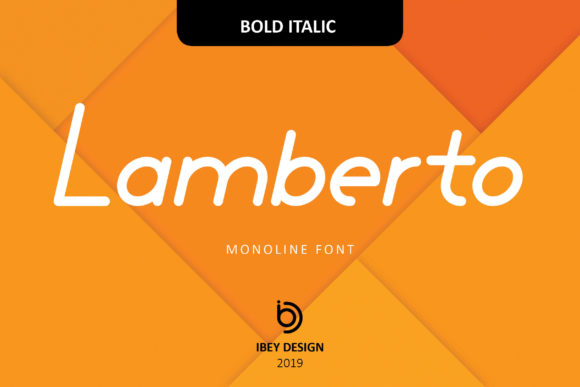
**Lamberto Bold Italic: The Font that Embodies Boldness and Elegance**
Prepare to be captivated by Lamberto Bold Italic, a monoline display font that exudes an air of sophistication and unwavering confidence. This masterpiece of typography seamlessly blends the allure of classic lettering with a distinctively contemporary edge.
Each stroke of Lamberto Bold Italic is a testament to the artistry of its creator, ibeydesign. Its bold and commanding presence is sure to leave an unforgettable impression, while its elegant curves and flourishes add a touch of timeless grace.
Lamberto Bold Italic is more than just a font; it's an invitation to express your ideas with unparalleled impact and style. Whether you're crafting eye-catching headlines, designing captivating logos, or creating unforgettable social media posts, this font will elevate your work to new heights.
Indulge in the allure of Lamberto Bold Italic and experience the transformative power of typography. Let its bold strokes ignite your creativity and inspire you to craft designs that resonate with confidence and sophistication.